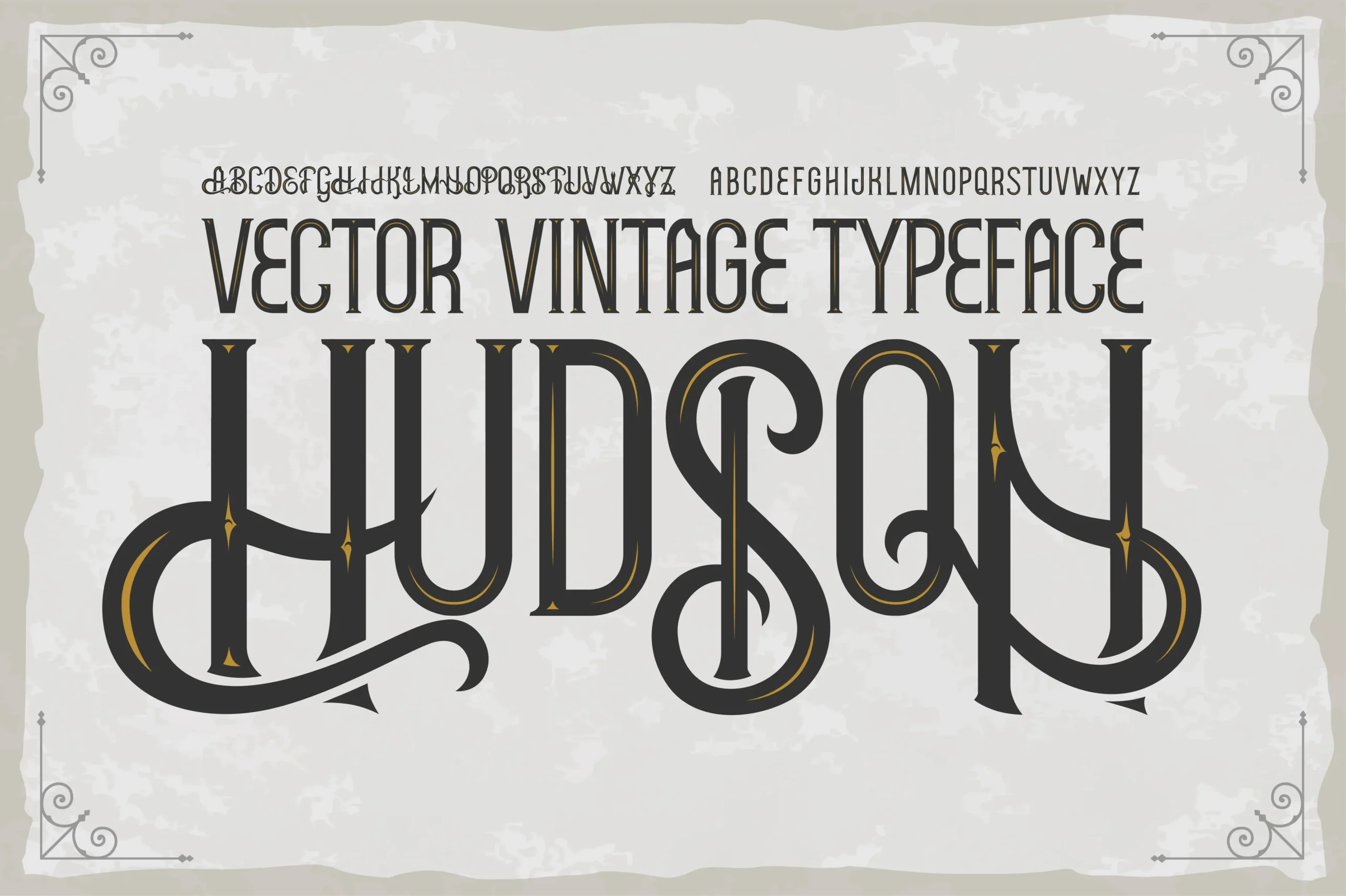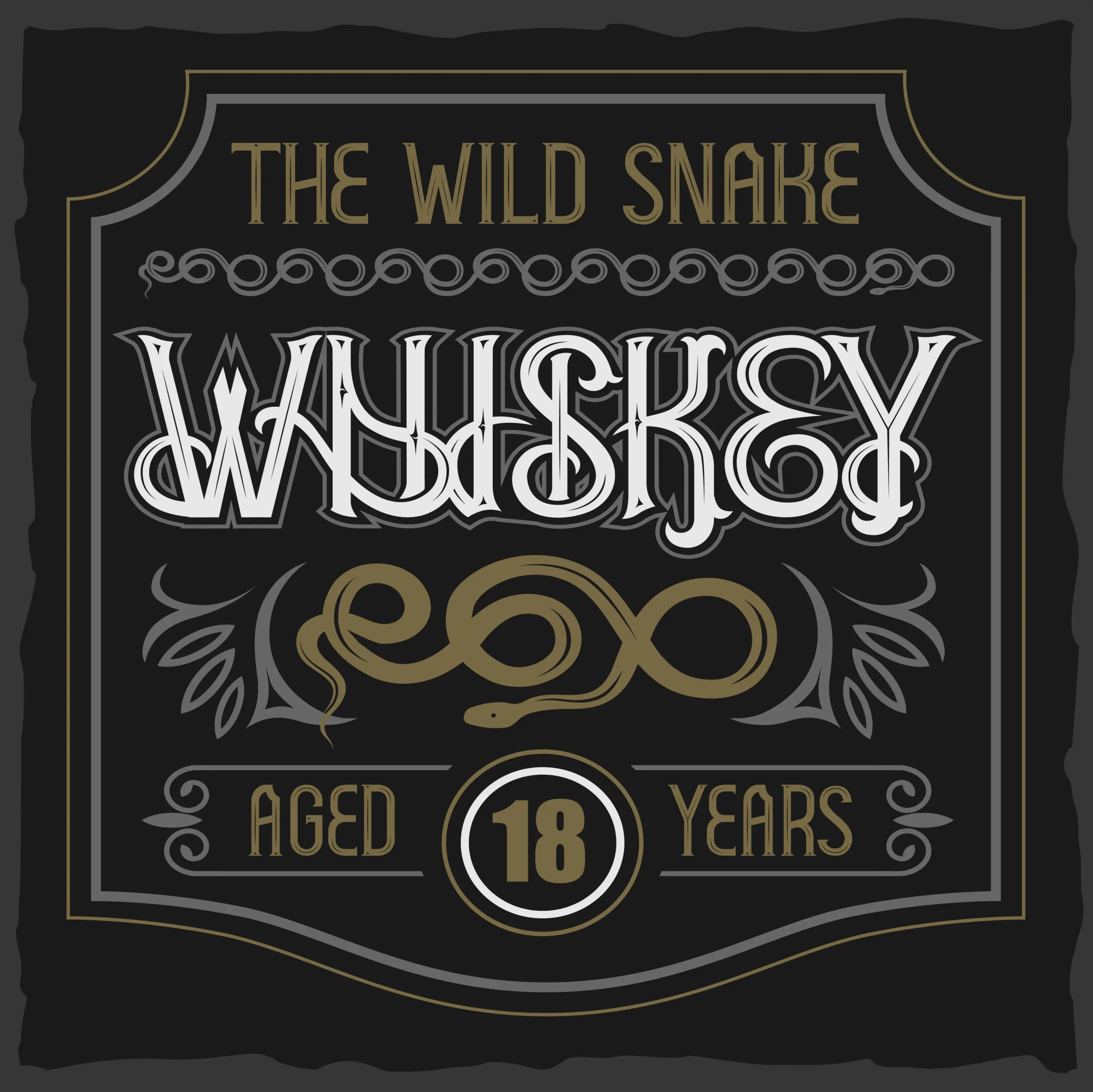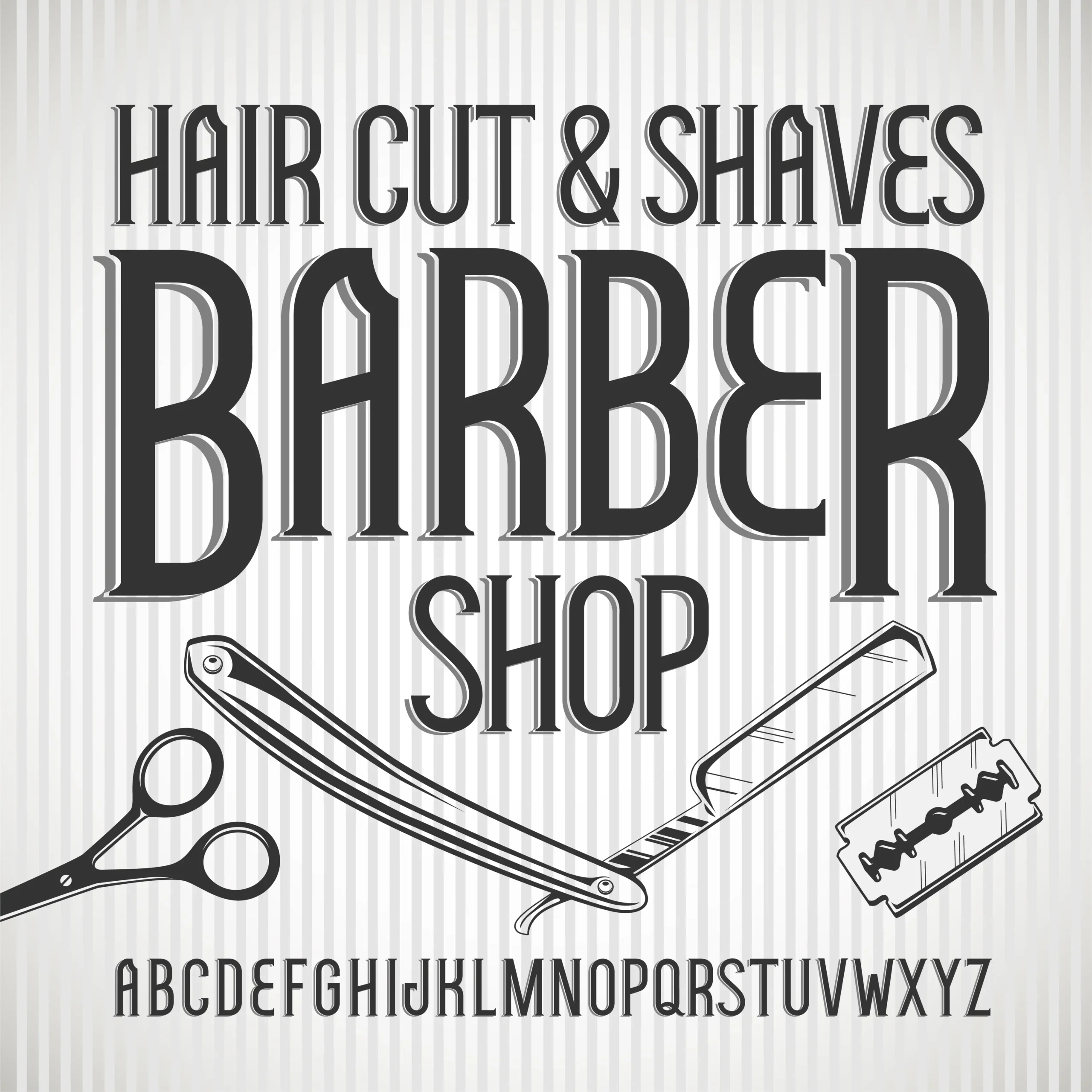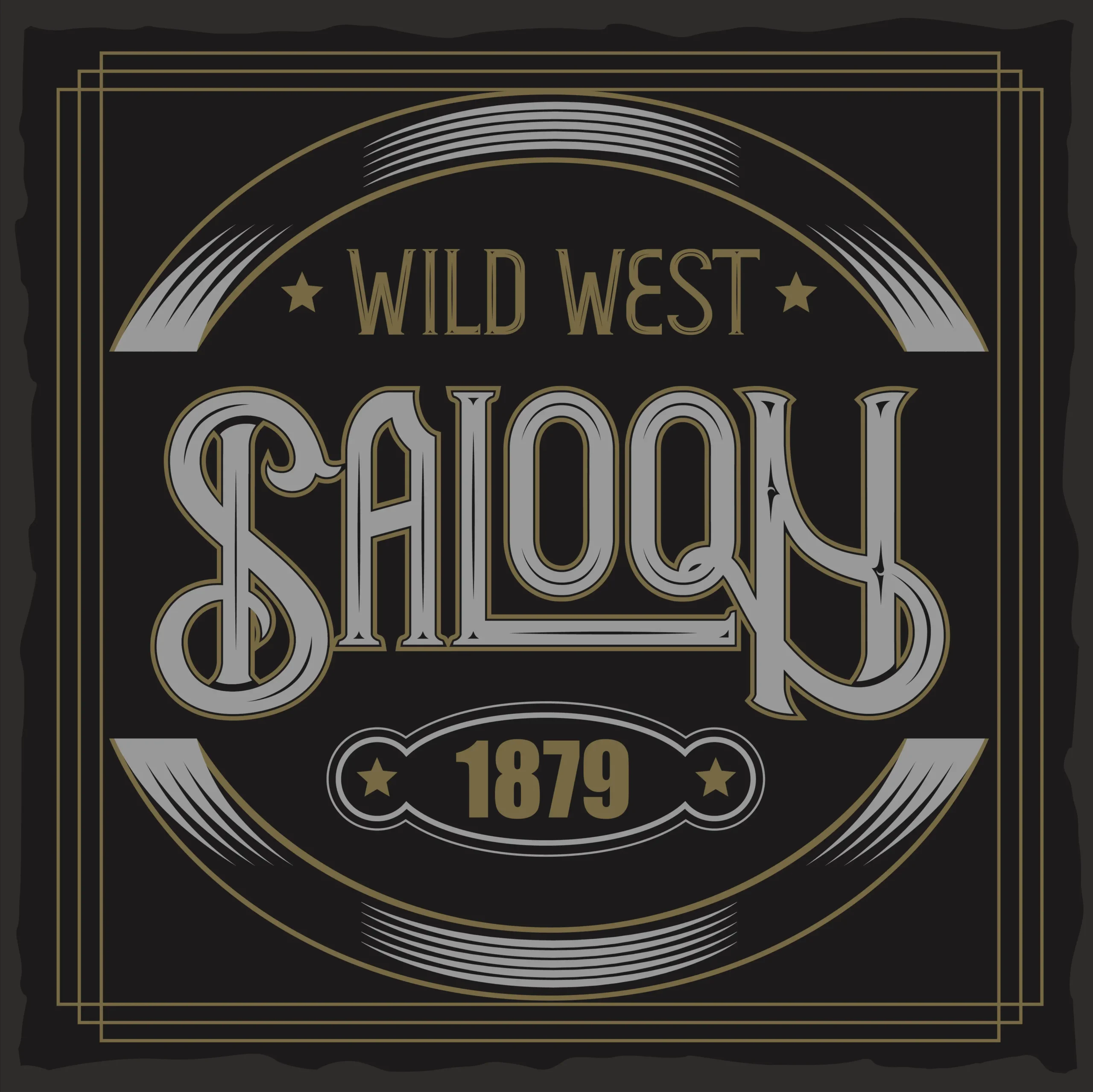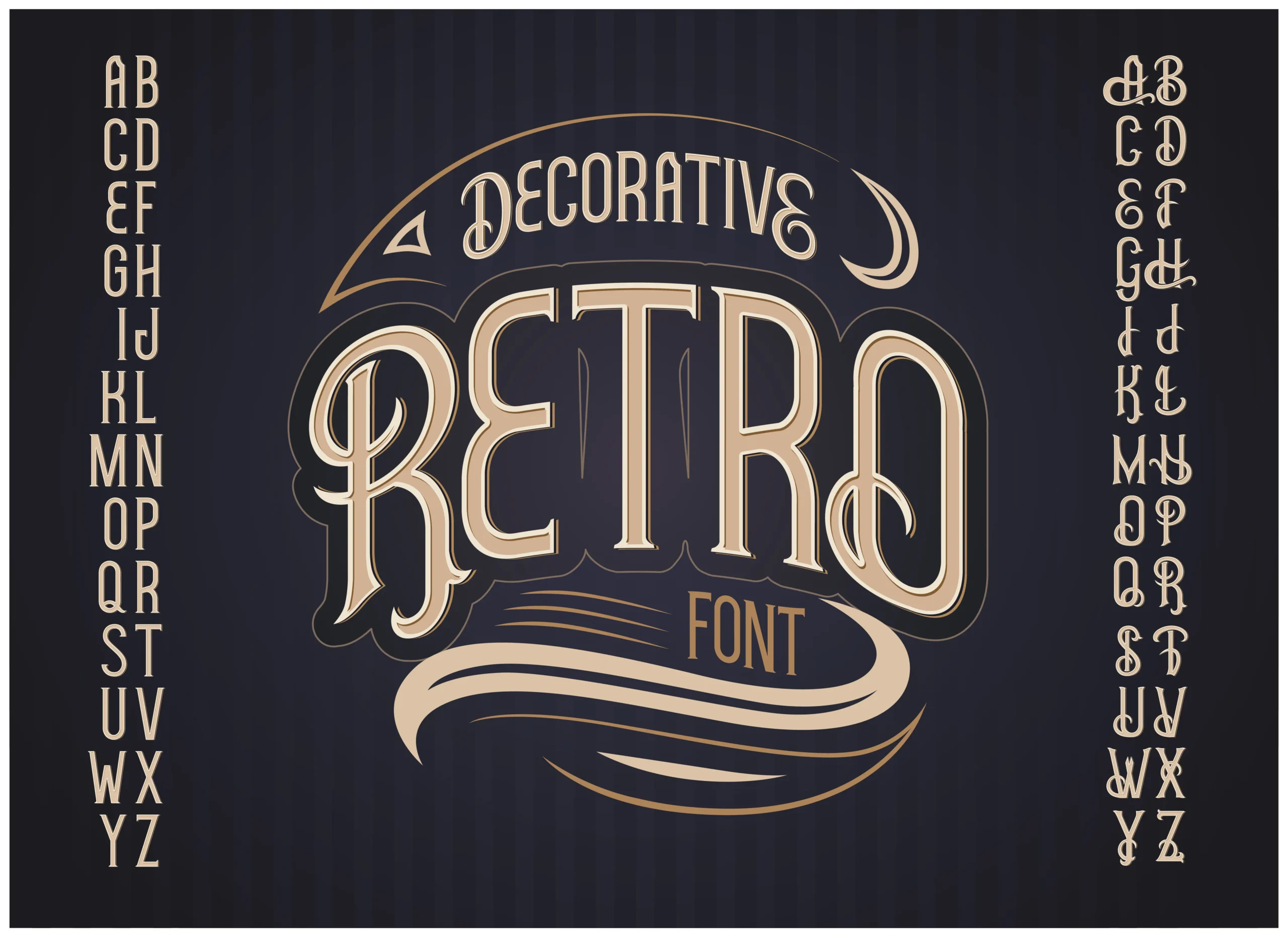
Hudson Otf Vintage Label Font
The Hudson Otf Vintage Label Font is a stylish typeface that captures the essence of classic label designs. This font features a unique vintage aesthetic, making it perfect for a variety of creative projects.
• Distinctive vintage style
• Uppercase letters, numbers, and punctuation included
• Style: Vintage Label
Ideal for branding, logos, packaging, and print materials, the Hudson Otf Vintage Label Font adds a nostalgic touch to your designs.